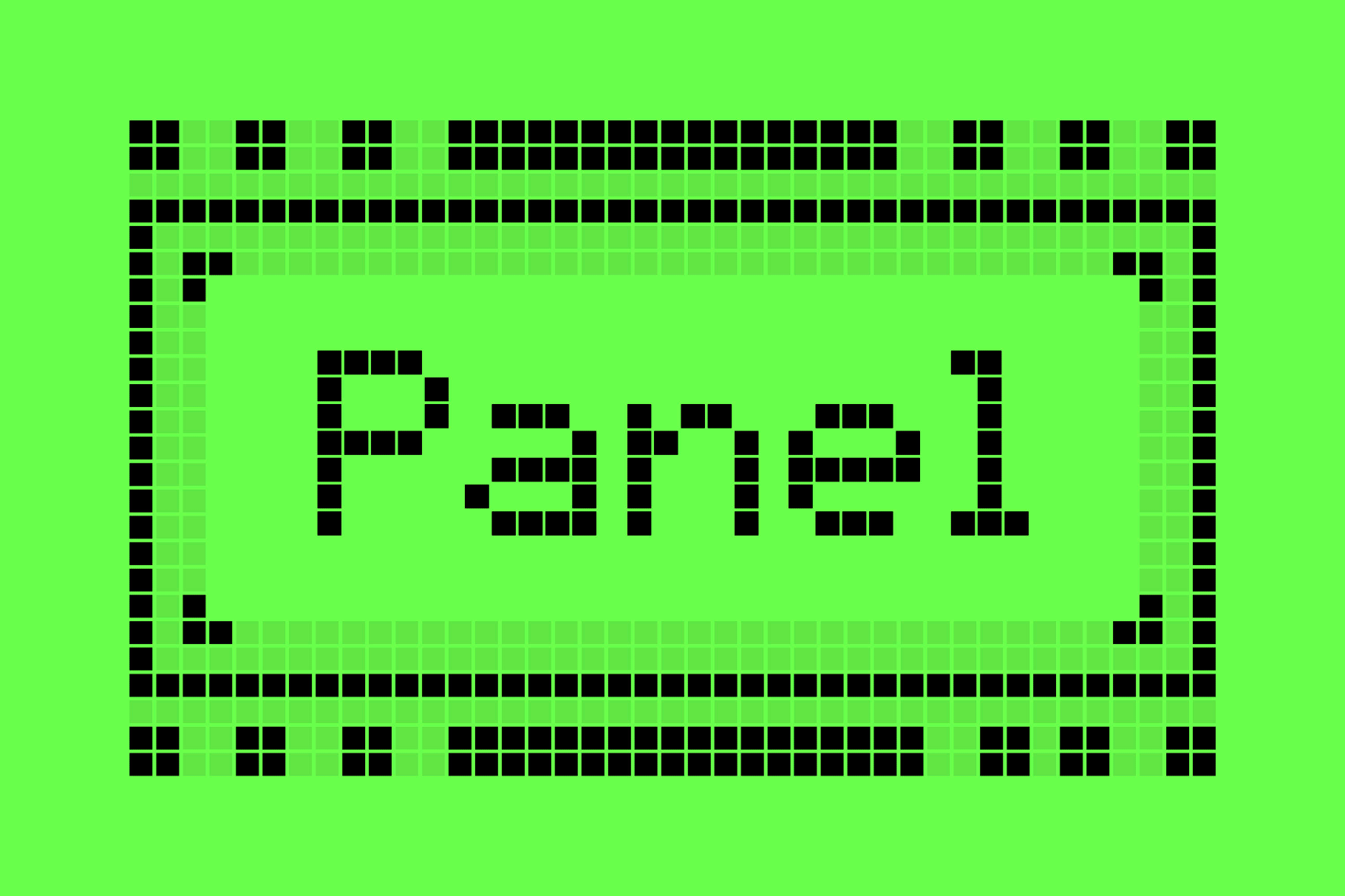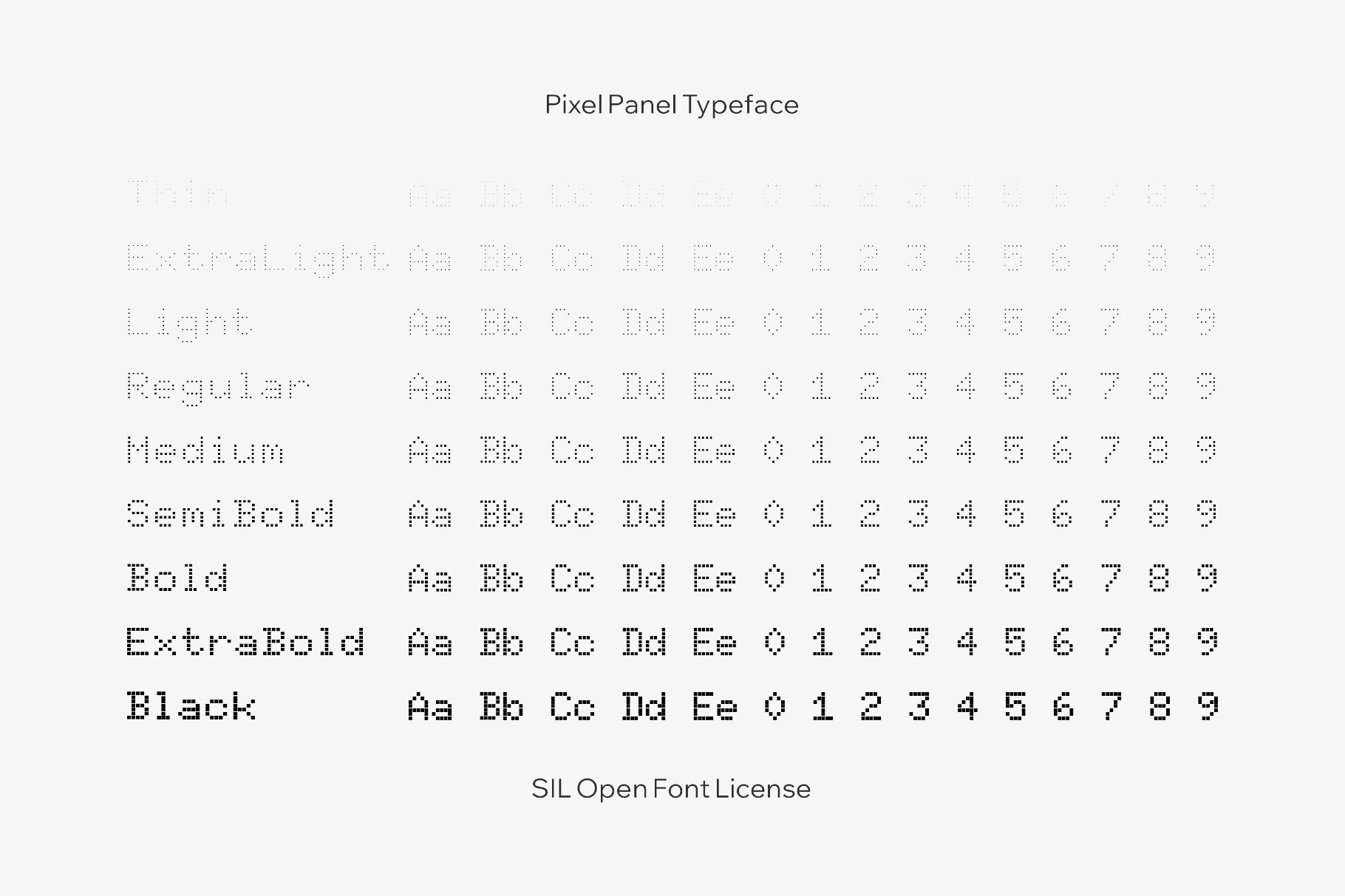
Pixel Panel Typeface
Pixel Panel is a flexible sans that imitates indicator lights: each letter is constructed from tiny dotted pixels. The forms are clean and geometric, with steady spacing and sharp corners. The font is suitable for tech-themed posters, UI mockups, dashboards, and infographics. It also fits album artwork, exhibition graphics, packaging for gadgets or audio gear, and event identity systems.
- Multiple styles: Regular, Black, Bold, ExtraLight, Medium, SemiBold, Thin.
- Uppercase and lowercase letters, numbers, punctuation, and extra symbols.
- International characters with multilingual support across extended Latin-based languages.